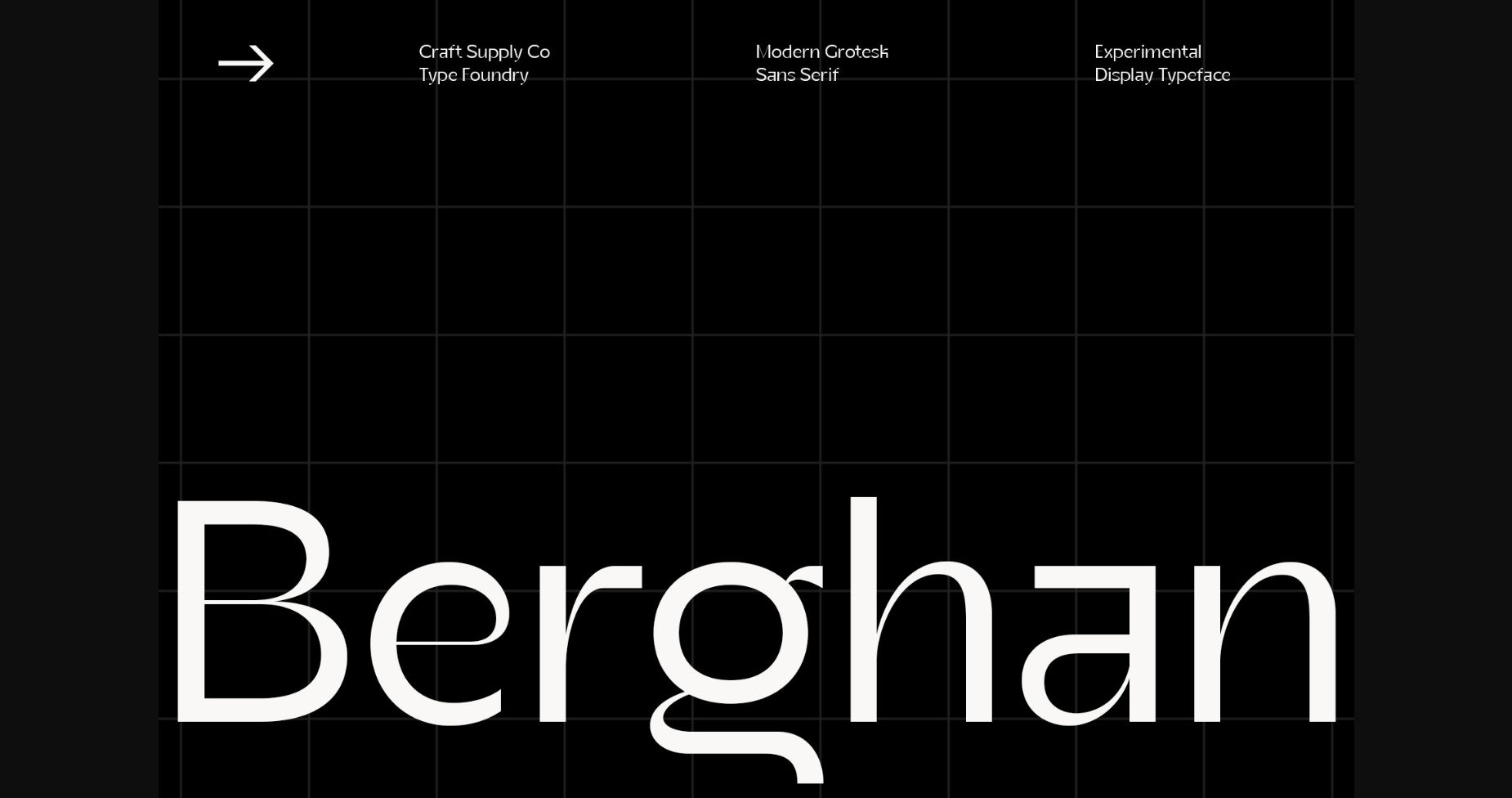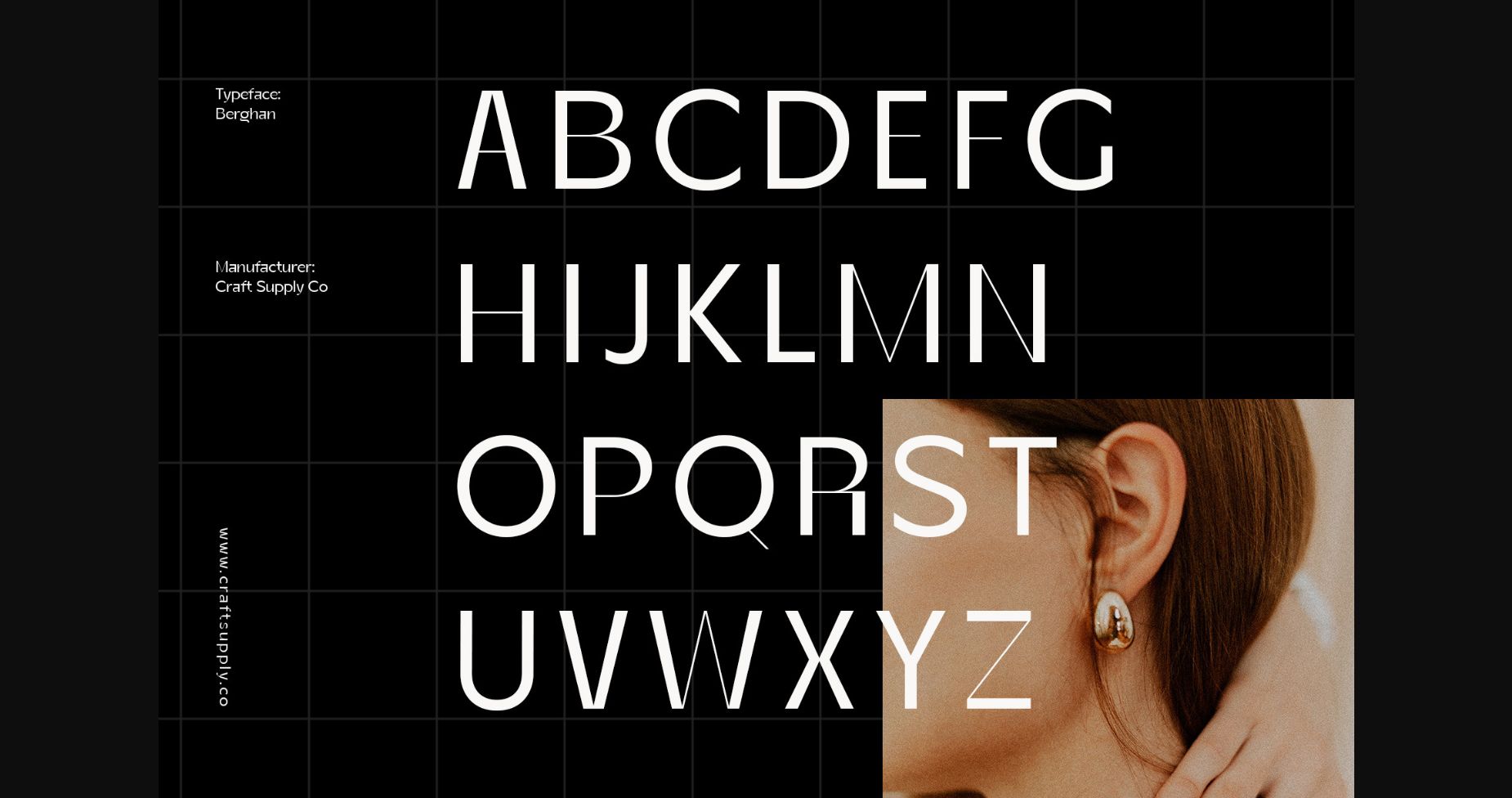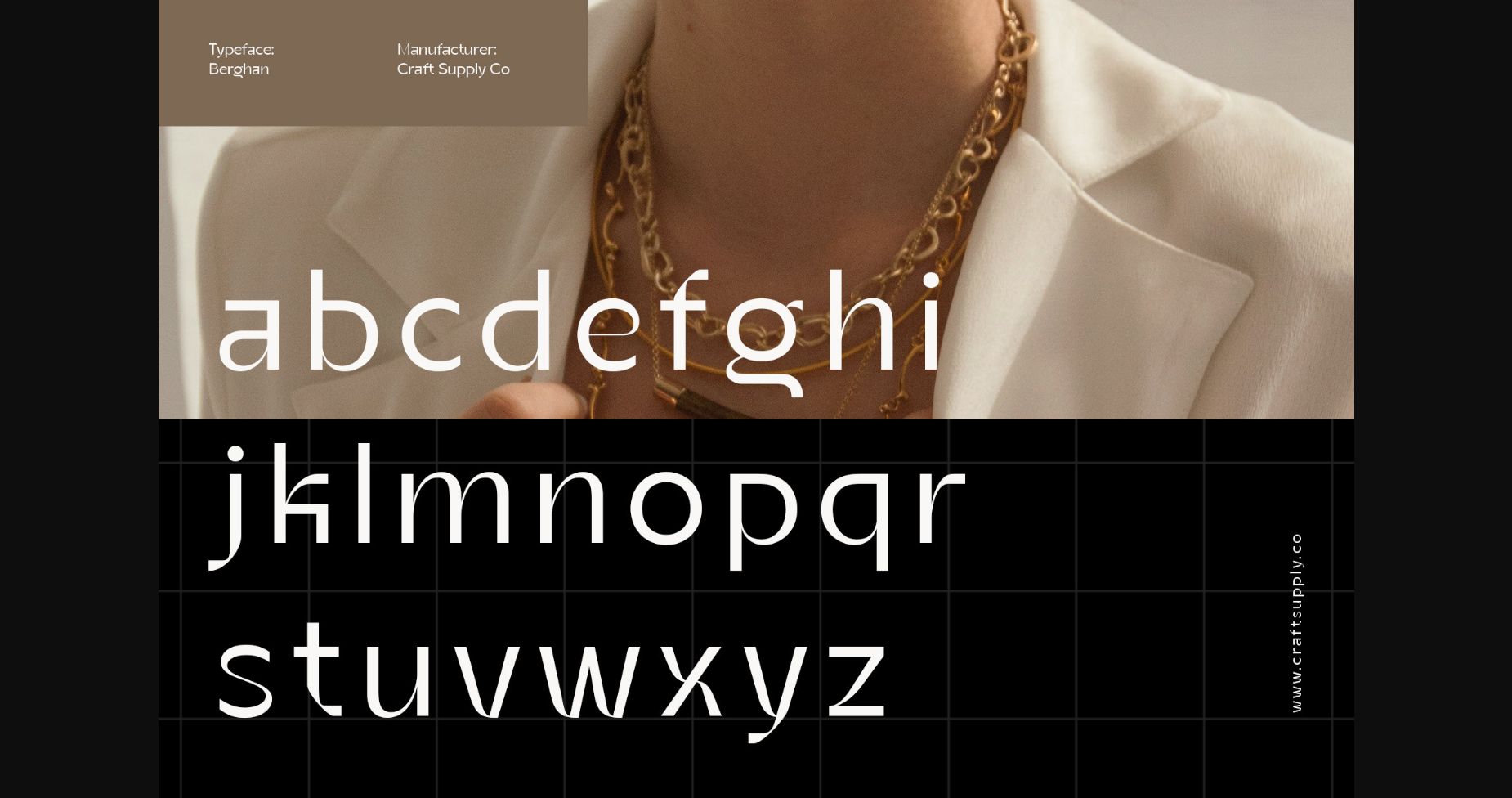
About Berghan Font
Berghan is a modern and cool sans serif font, features thick and thin contrast details for contemporary nuances. It can be used to create almost all types of design projects, such as print materials and more. Just use your imagination and your project will become more alive and look greater than ever with this typeface.